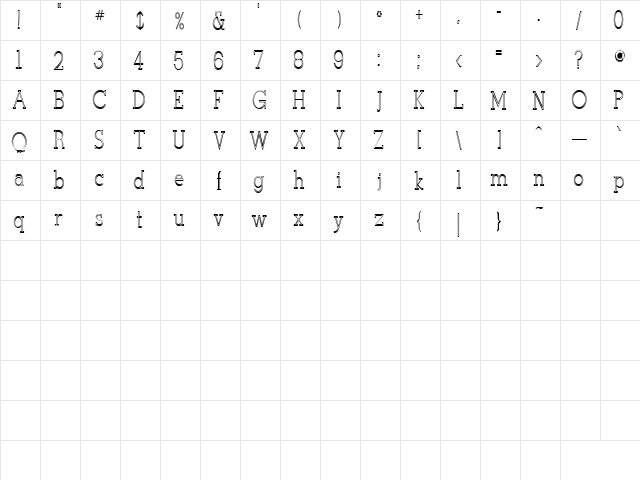
Smithers 1 Regular
Design Context for Smithers 1 Typeface
Smithers 1 takes a measured approach to typography — its balanced proportions and neutral character make it a reliable workhorse for both digital and print work.